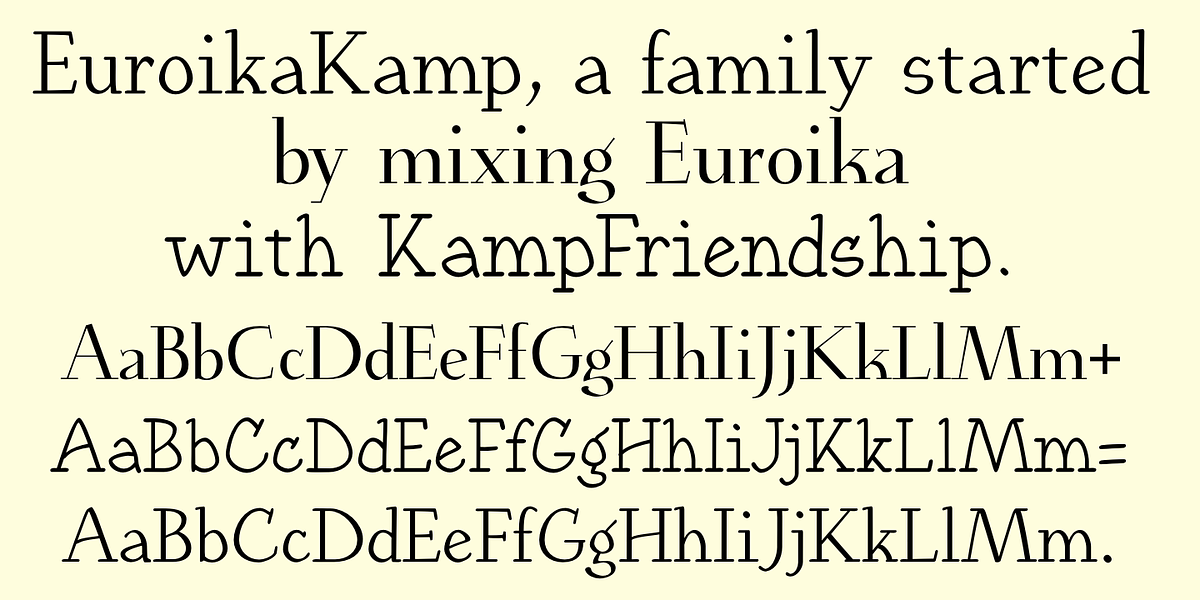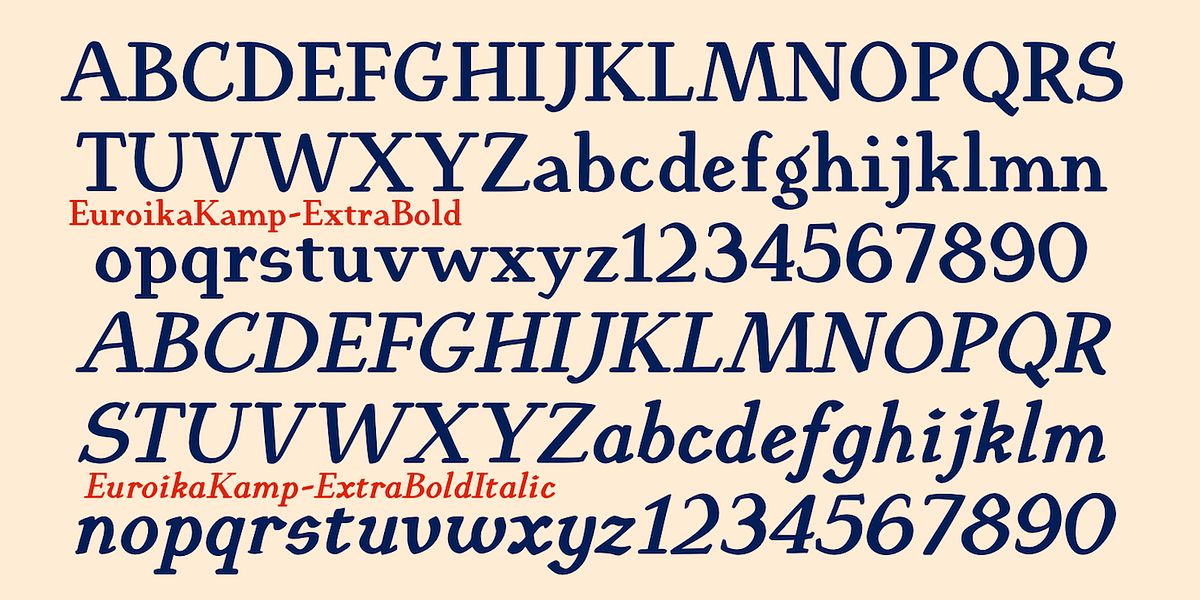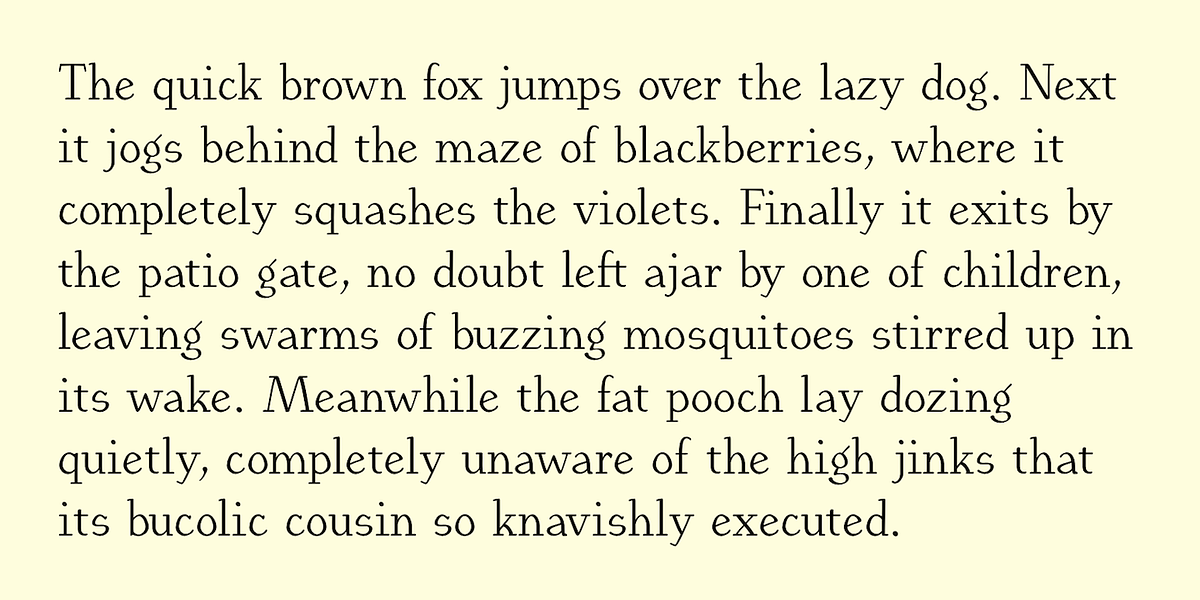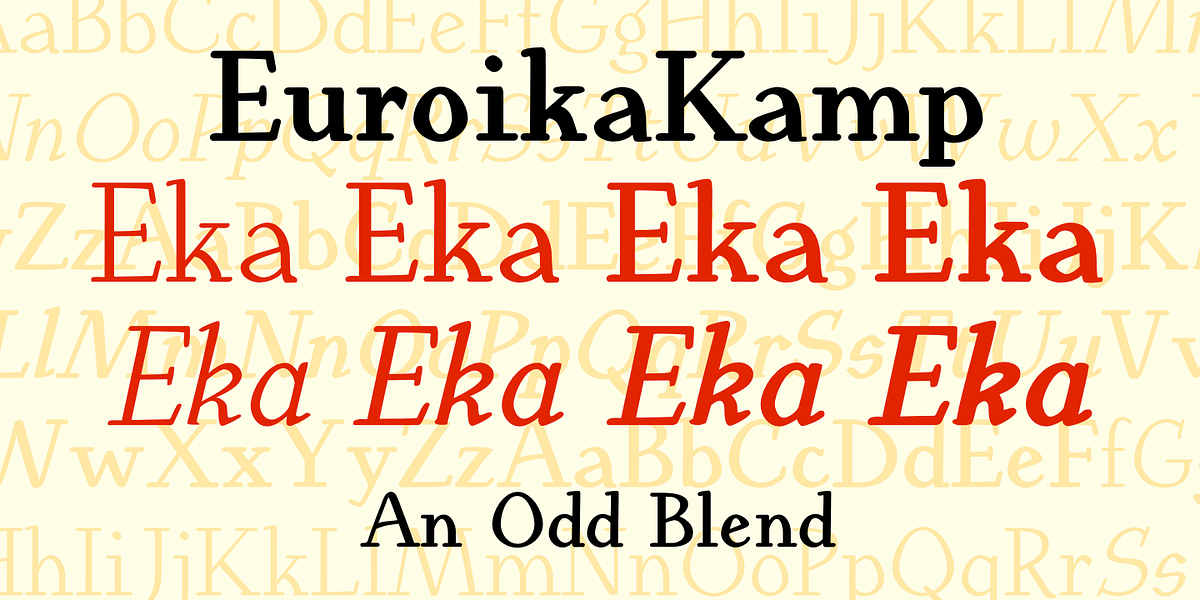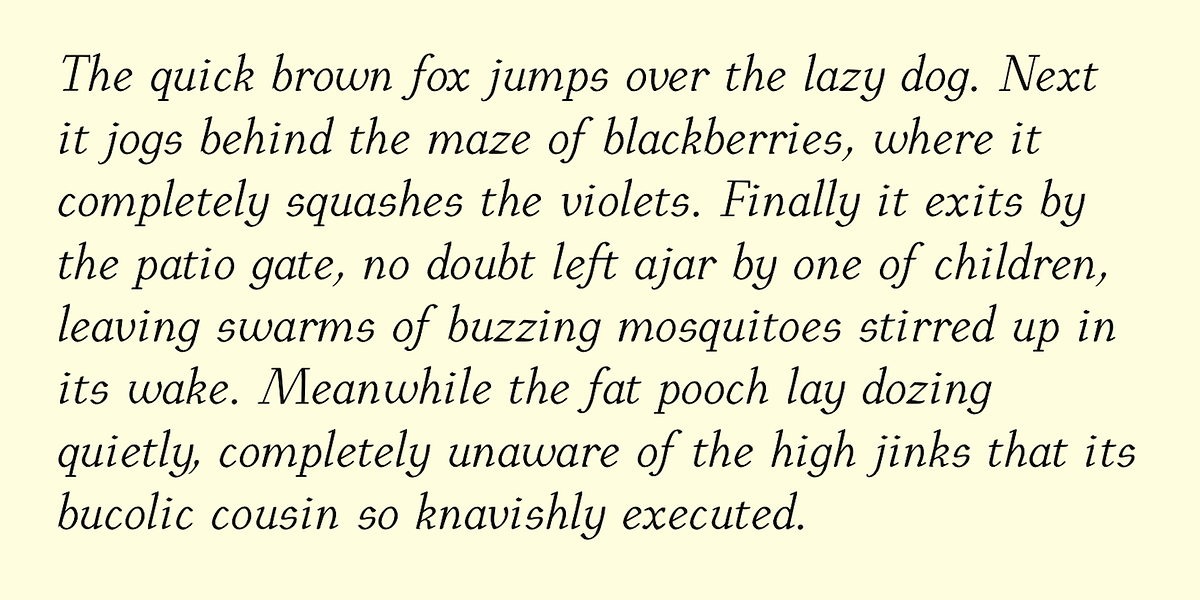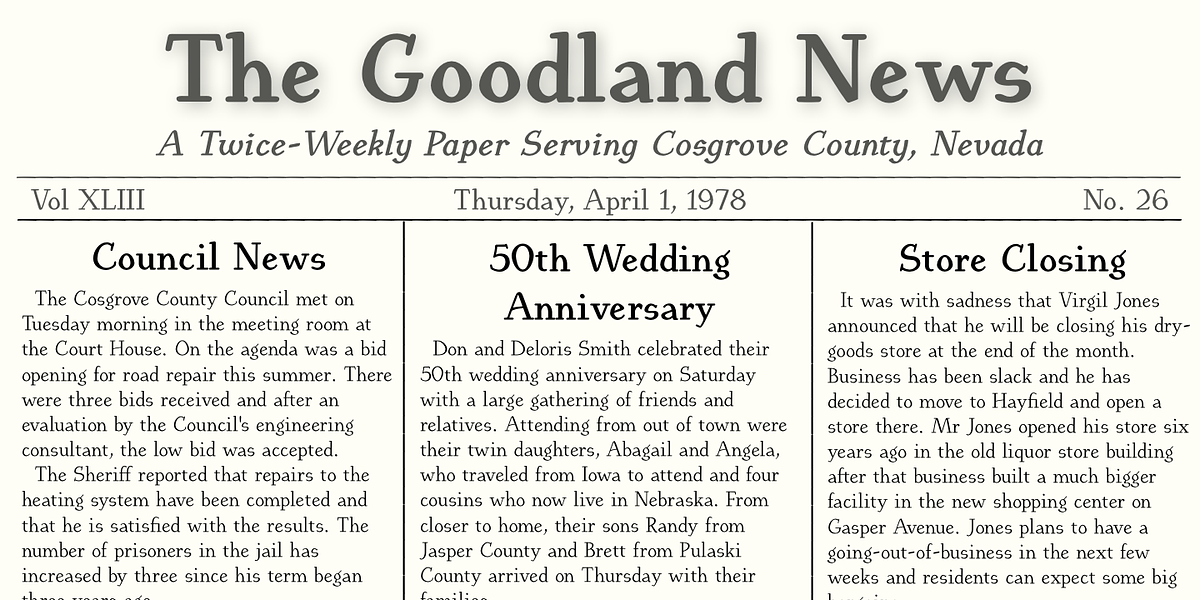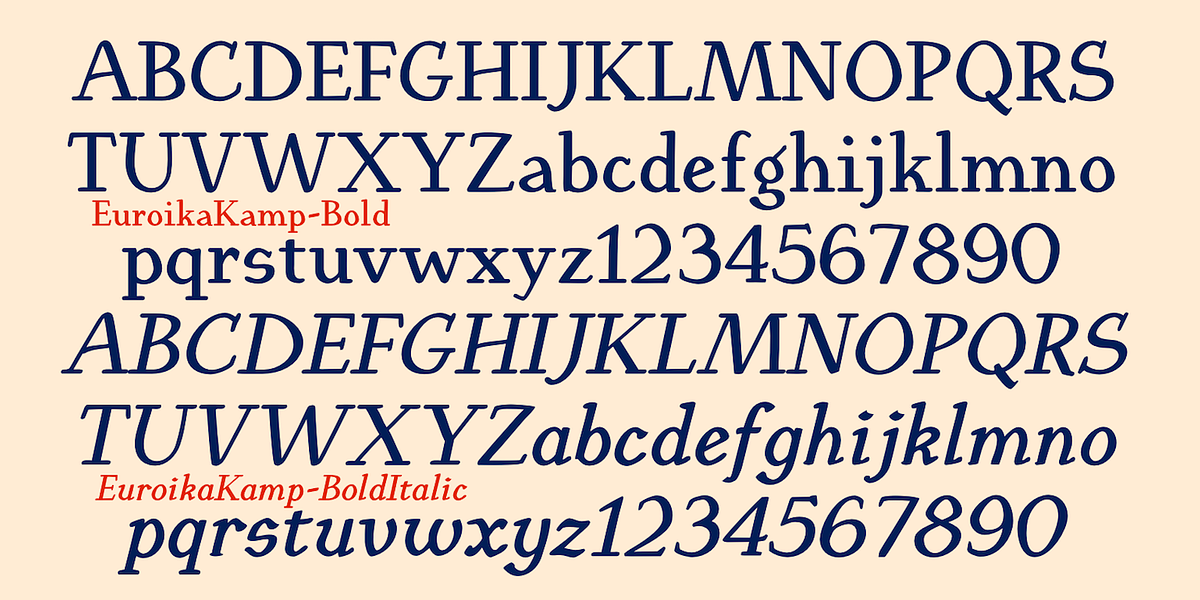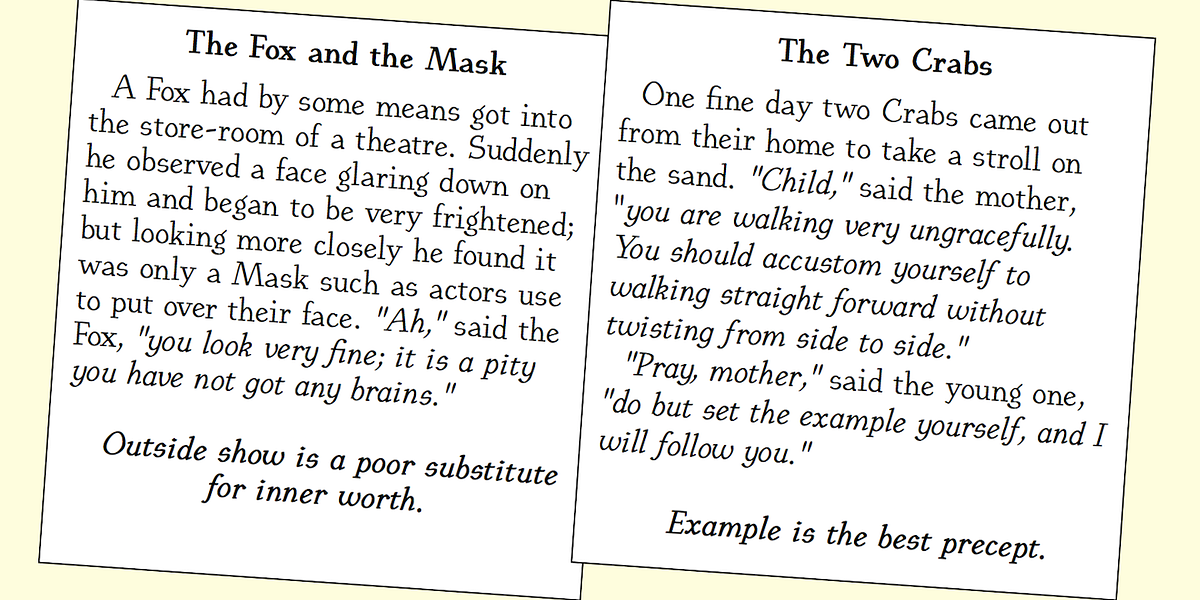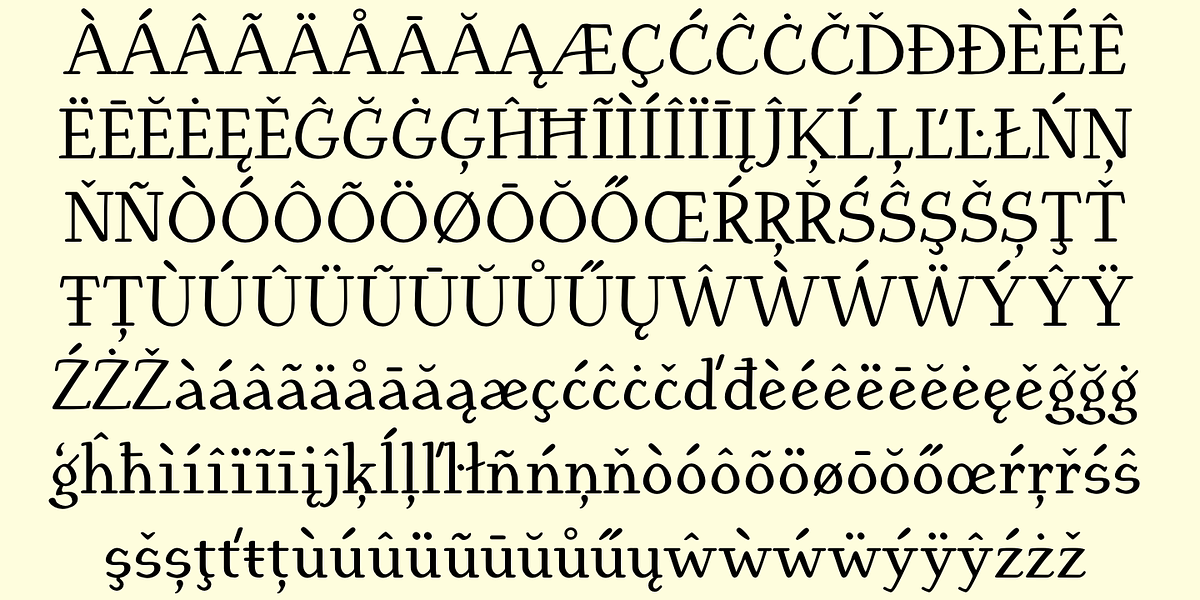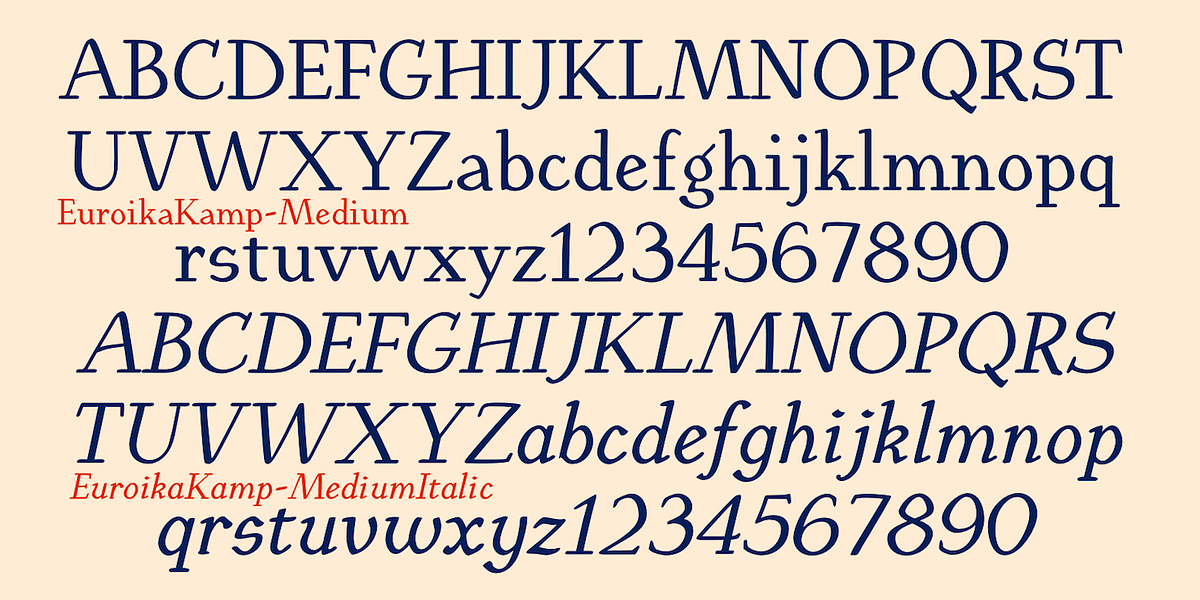
EuroikaKamp
EuroikaKamp is a serif font with a distinct hand-drawn aesthetic. It was created by blending two contrasting fonts: Euroika, known for its high contrast and smooth curves, and KampFriendship, a nearly mono-linear hand-drawn serif. The resulting typeface is characterized by its readability while maintaining a quirky and informal feel, making it suitable for display text where a more personalized touch is desired.